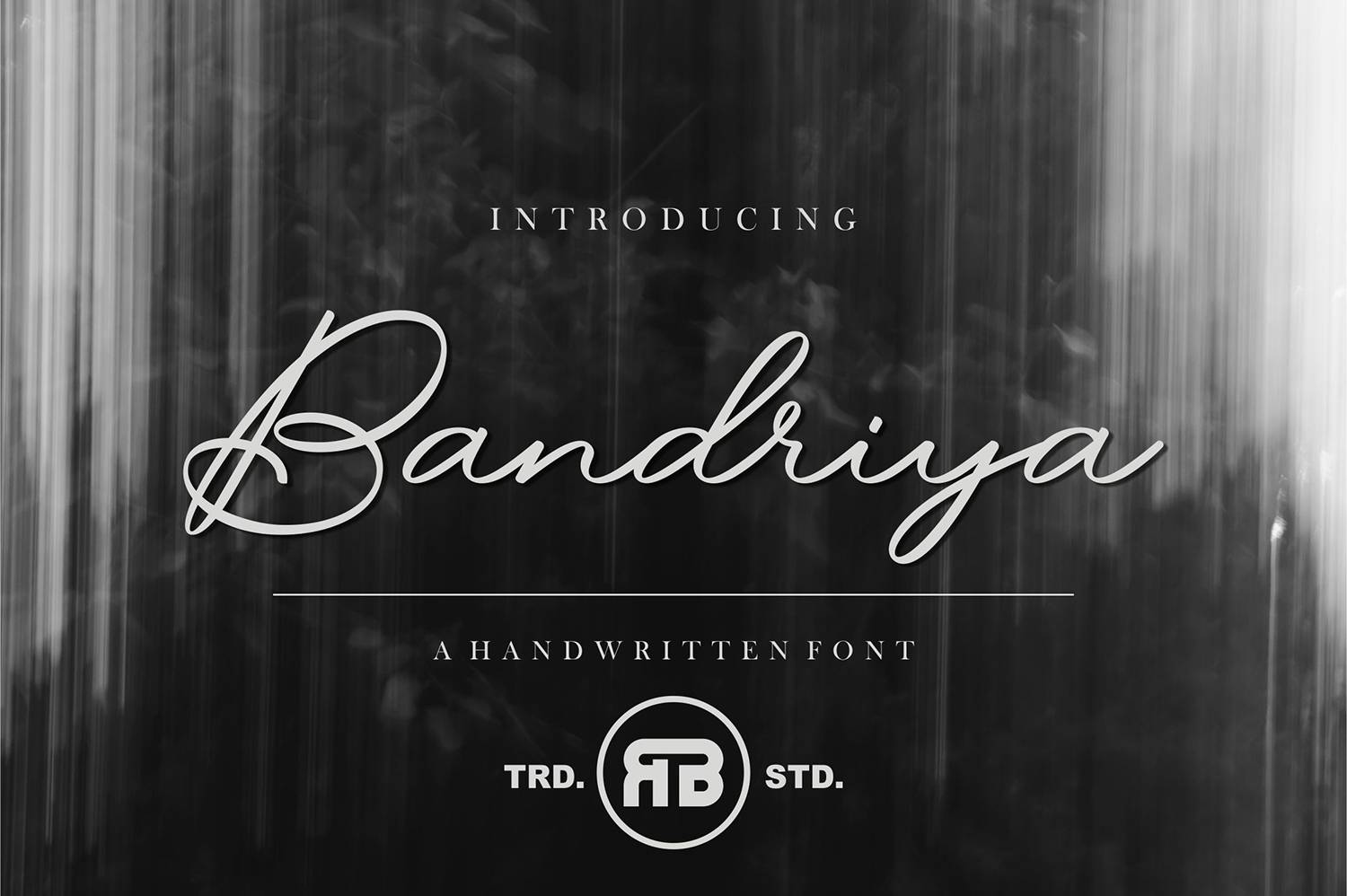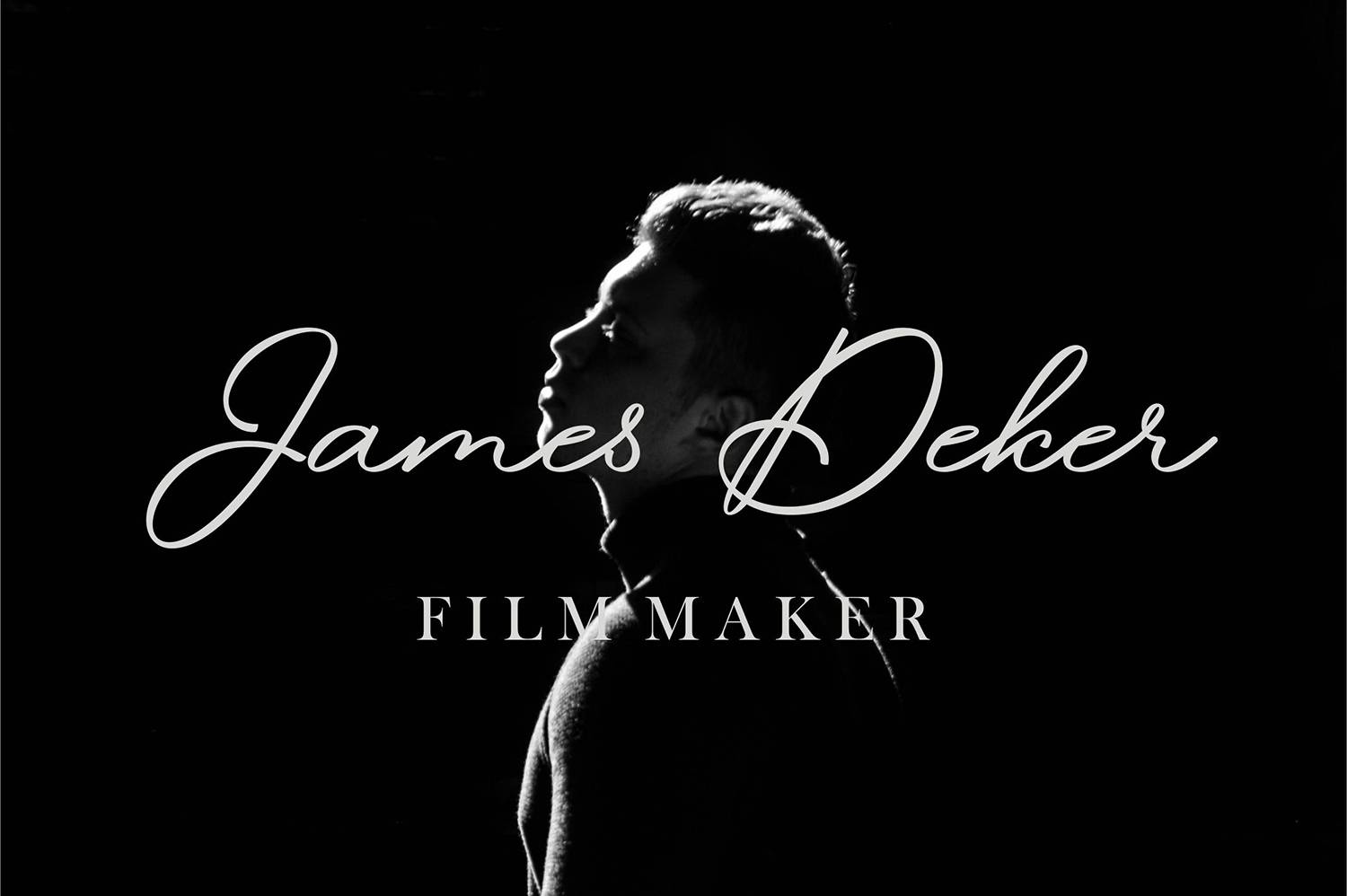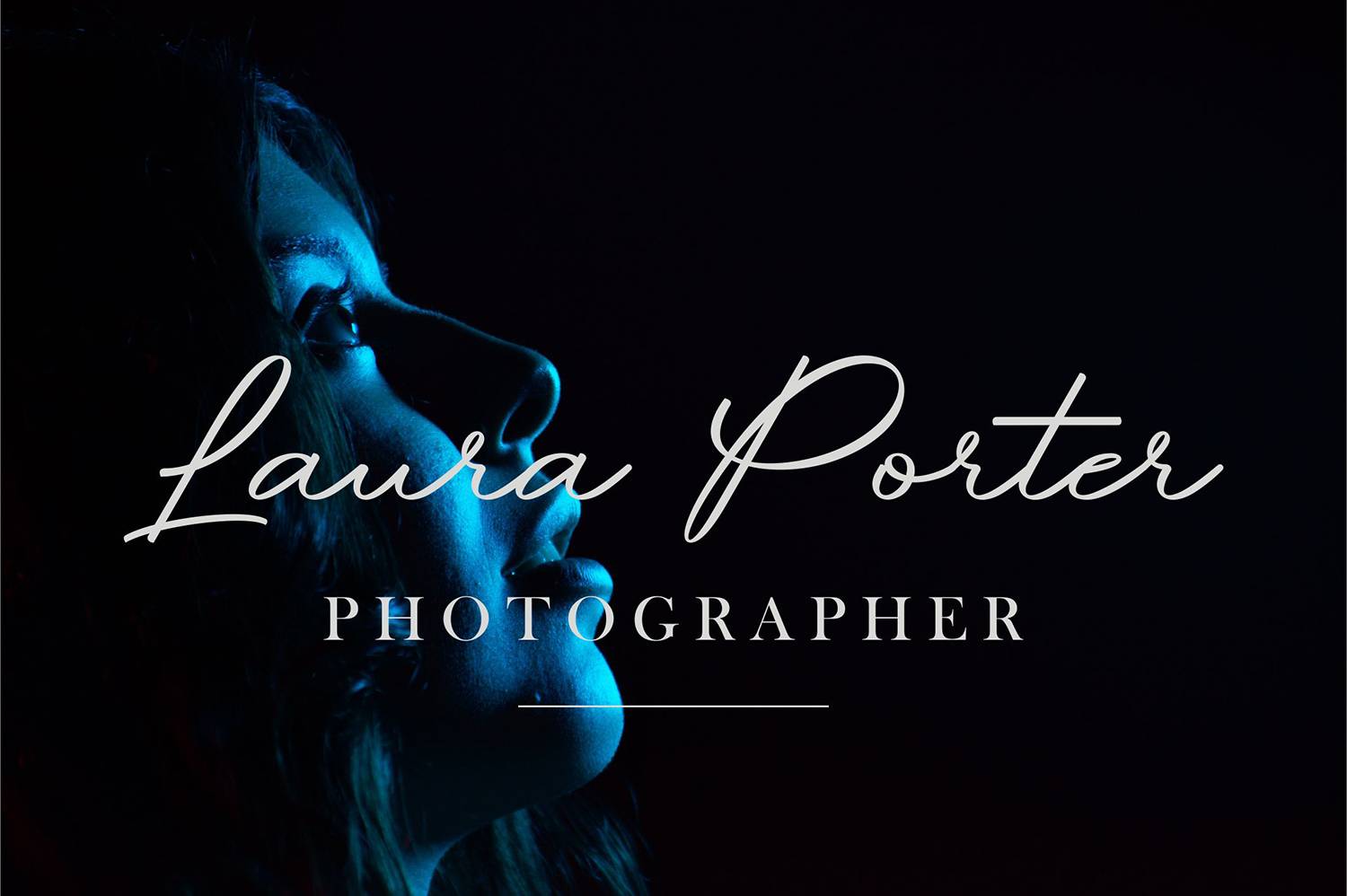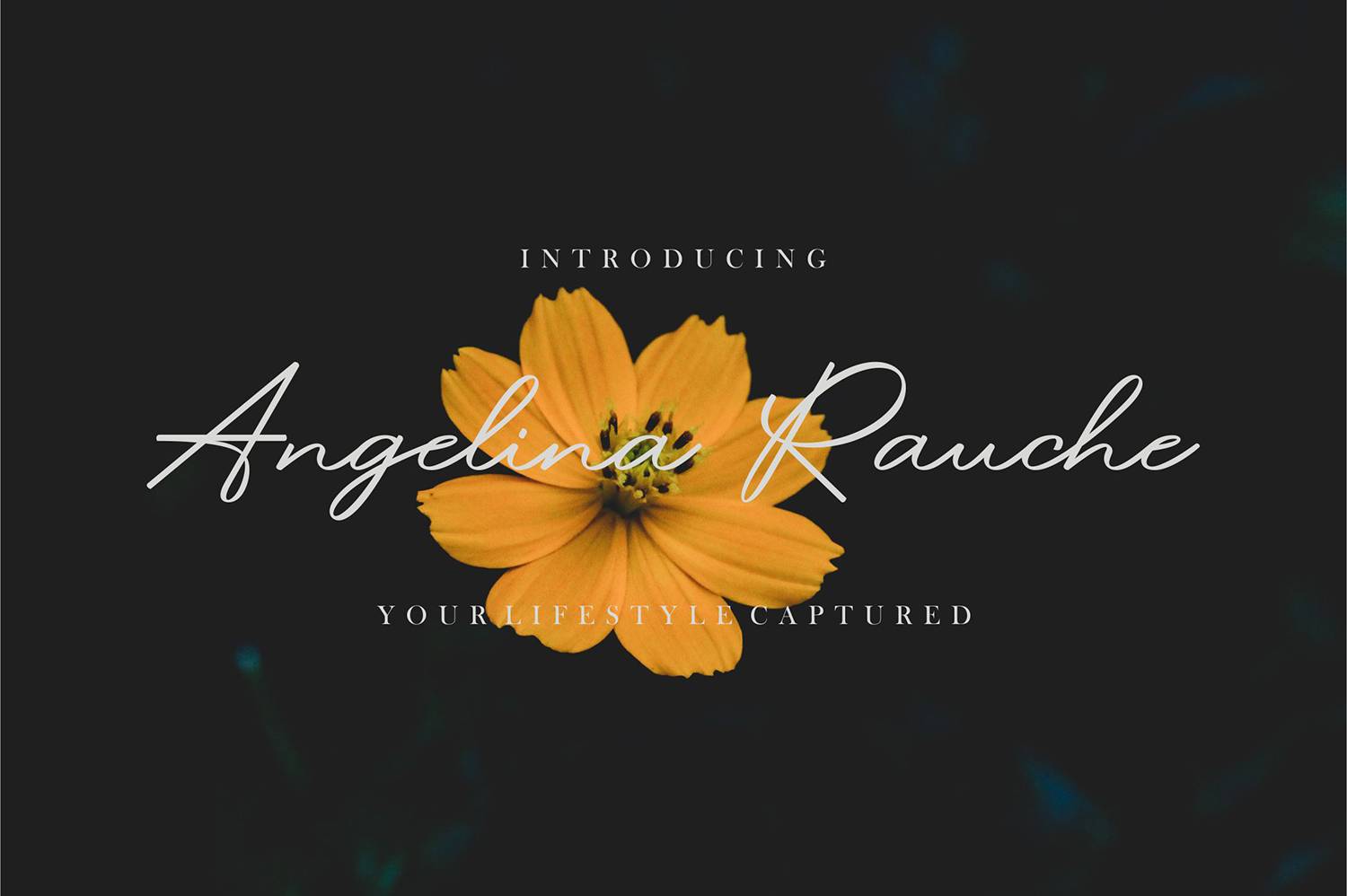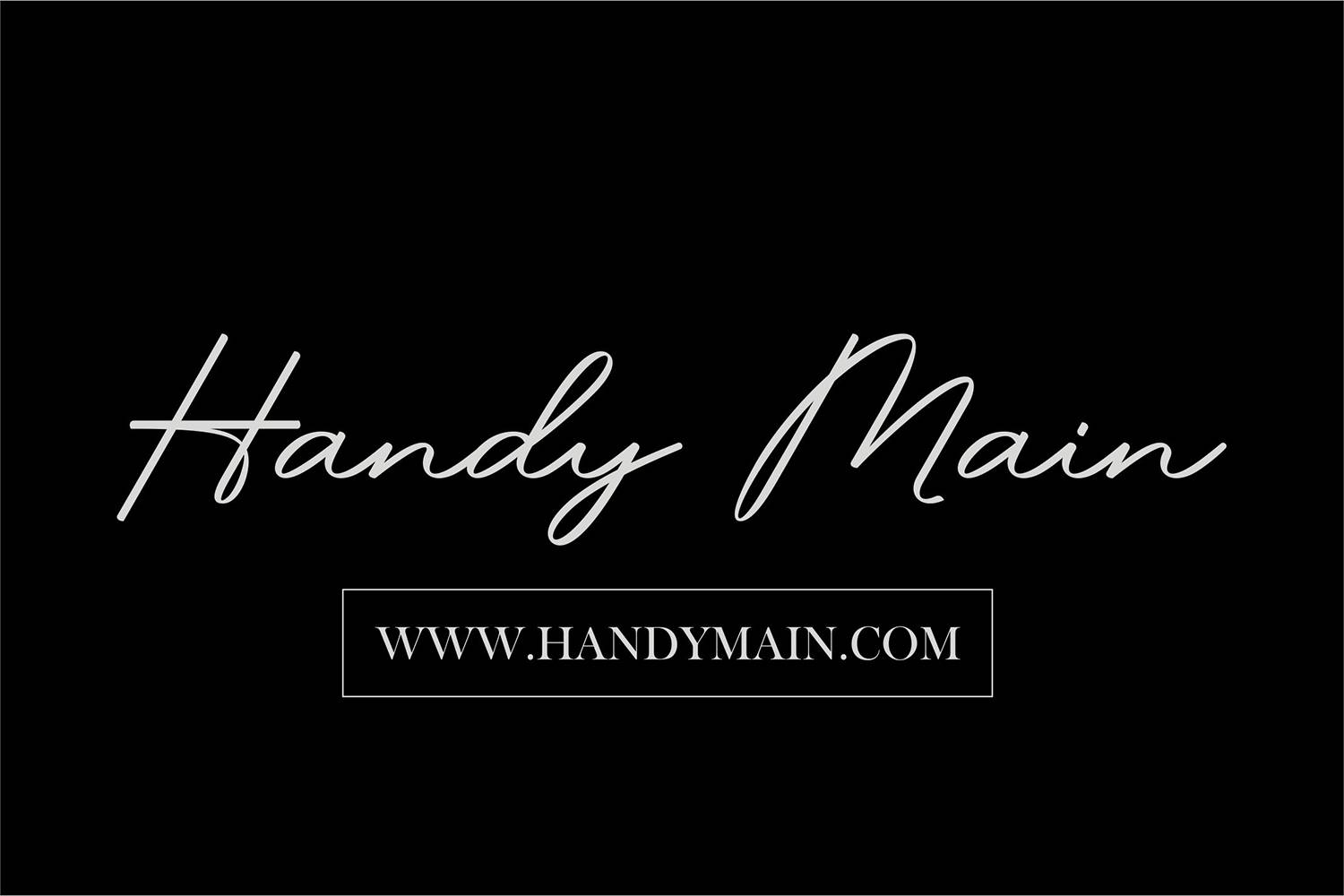
Bandriya is a delicate script font with a refined, handwritten style that exudes elegance and sophistication. Its slender, flowing letterforms and slightly slanted stance make it perfect for creating a personal, graceful touch in branding, invitations, and upscale editorial designs. This font works wonderfully for projects that aim to convey charm and subtle luxury with a modern calligraphic flair.
Bandriya Font
About Bandriya Font
| Font family | Bandriya Font |
| Designer | MOH. MA'IN |